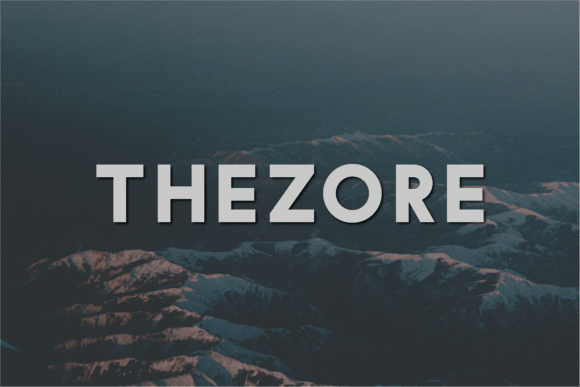
Step into the enchanting world of Thezore, a modern and sophisticated sans serif font that will leave you breathless. Its clean lines, elegant curves, and captivating presence are crafted to elevate your designs to unprecedented heights.
Whether you're seeking to create breathtaking logos that demand attention or design wedding invitations that exude timeless charm, Thezore has got you covered. Its versatility shines through in its ability to transform ordinary text into extraordinary works of art, perfect for capturing special moments and leaving a lasting impression.
Unleash your creativity with Thezore and watch your words dance with newfound allure. Its modern aesthetic is a perfect fit for contemporary designs, while its classic elegance adds a touch of timeless sophistication. Let Thezore be the secret weapon that sets your projects apart, making them truly unforgettable.
Immerse yourself in the boundless possibilities that await with Thezore. From captivating advertisements to eye-catching magazines, this font is your gateway to a world of visual enchantment. Experience the transformative power of Thezore today and let your designs soar to new heights of brilliance!